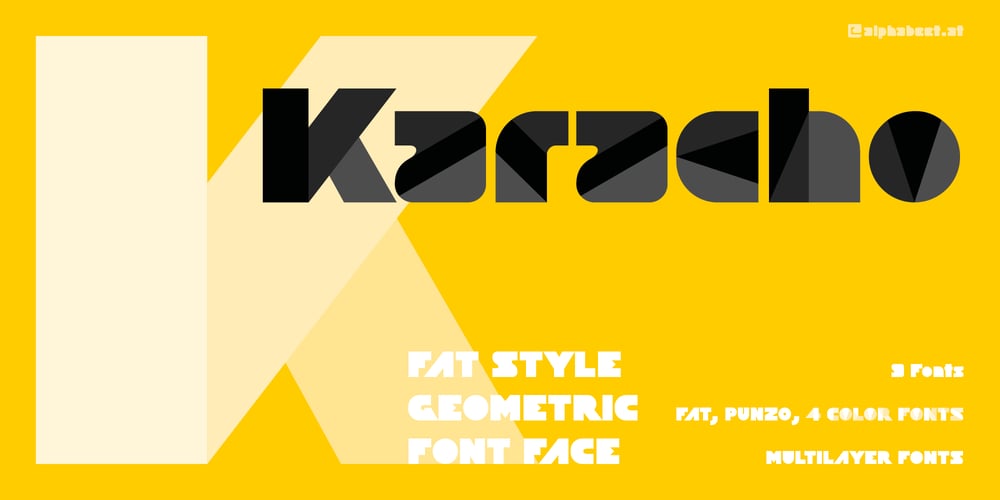
Karacho Font Family was designed by Florian Kriegner and published by alphabeet.at. Karacho contains 5 styles and family package options. Karacho is a ‘fat style’ geometric display typeface with two counter-styles, a stylistic set of lowercase letters, and multilayer options: the font design is separated in three layers for building individually colored font variants.